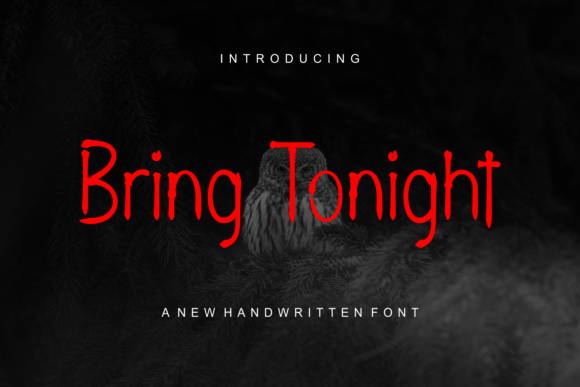
Bring Tonight Font: A Bold and Authentic Display Font for Your Creative Projects
Have you ever been in the middle of a design project, and suddenly, you just can’t seem to find the right font? I recall a particularly frustrating experience when I was working on a logo design for a client who wanted something bold, modern, and eye-catching. After hours of scouring through font libraries, I stumbled upon Bring Tonight Font, and it instantly clicked. In this article, I’ll share my experience with this fantastic font, its features, and how to make the most of it in various design platforms.
An Honest Review of Bring Tonight Font
Bring Tonight Font is a bold and authentic display font that has become a staple in my design toolkit. Here’s what I love about it:
- ✨ Unique and eye-catching design: Bring Tonight Font has a distinctive style that sets it apart from other fonts.
- ✅ Highly versatile: It can be used for a wide range of projects, from logos and t-shirt printing to esport designs and more.
- ✅ Easy to read: Despite its bold nature, the font remains clear and legible, even at smaller sizes.
However, like any font, it’s not perfect. Here are a few quirks to keep in mind:
- 🤔 Limited use for body text: Due to its bold nature, Bring Tonight Font may not be the best choice for lengthy paragraphs or body text.
- ⚠️ Some glyphs may require manual adjustment: Depending on the context, you might need to tweak certain glyphs to ensure they fit perfectly.
A Practical Guide to Using Bring Tonight Font
The Backstory Behind Bring Tonight Font
Bring Tonight Font was designed with the goal of creating a bold and authentic display font that would stand out in various design contexts. The designer aimed to craft a font that would be both modern and timeless, with a unique personality that would make it memorable.
| Font Name | Bring Tonight Font |
| Author | artchiles design |
| What is Bring Tonight Font best used for? | Bring Tonight Font is ideal for logos, t-shirt printing, esport designs, and any project that requires a bold and eye-catching font. |
| Is Bring Tonight Font suitable for body text? | While it’s possible to use Bring Tonight Font for body text, it’s not the best choice due to its bold nature. It’s better suited for headings and titles. |
| Is Bring Tonight Font available in different weights or styles? | Currently, Bring Tonight Font is available in a single weight, but it may be updated with additional weights or styles in the future. |